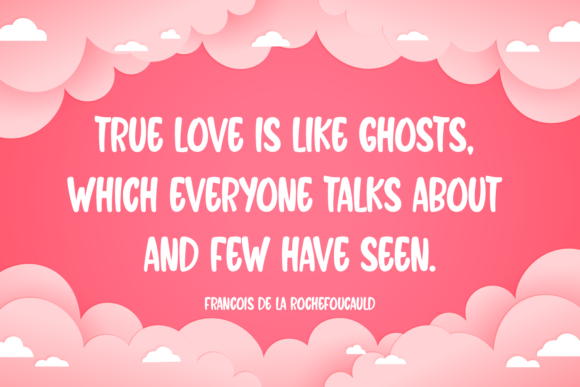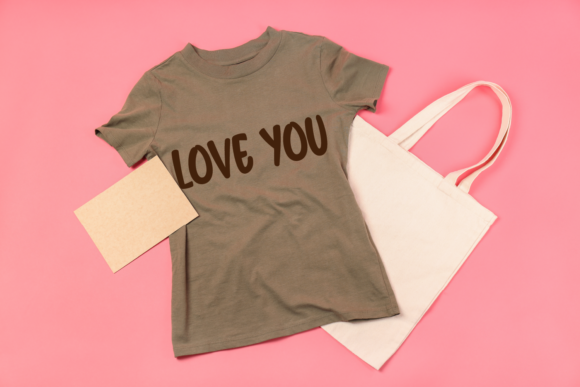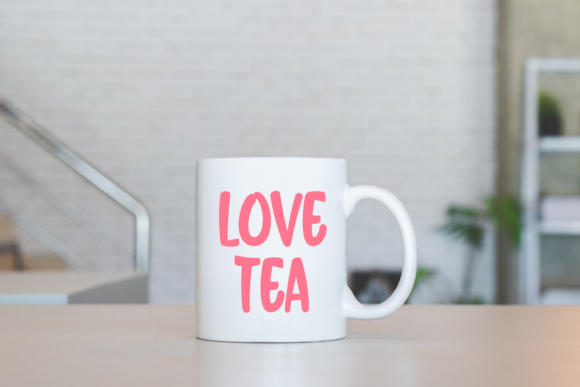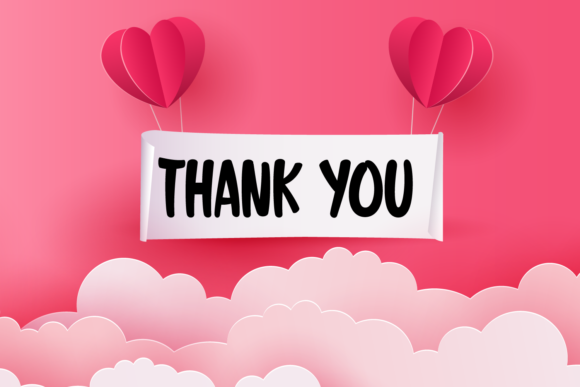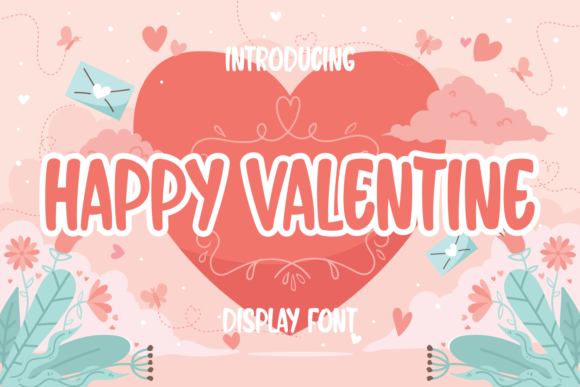
Happy Valentine Font: The Perfect Choice for Your Valentine’s Day Designs
Valentine’s Day is just around the corner, and what better way to make your designs stand out than with a beautiful and cute display font? Look no further than the Happy Valentine Font, a stunning typeface that’s perfect for creating eye-catching wall displays, wedding invitations, social media post logos, advertisements, product packaging, and more.
What Makes Happy Valentine Font So Special?
The Happy Valentine Font is a gorgeous display font that’s specifically designed to add a touch of love and charm to your designs. Its characters are carefully crafted to be both beautiful and cute, making it the perfect choice for any Valentine’s Day-themed project. Whether you’re a designer, crafty DIY enthusiast, or simply someone who loves to create, this font is sure to inspire you to create something truly special.
One of the best things about the Happy Valentine Font is its versatility. It’s perfect for a wide range of design projects, including:
• Wall displays: Create a stunning wall display with a sweet message or a favorite quote, perfect for Valentine’s Day or any other occasion.
• Wedding invitations: Make your wedding invitations truly special with this beautiful font, perfect for couples who want to add a touch of romance to their big day.
• Social media post logos: Create eye-catching social media post logos that are sure to grab attention and make your followers smile.
• Advertisements: Use the Happy Valentine Font to create adorable advertisements that will make your customers feel loved and appreciated.
• Product packaging: Add a touch of love to your product packaging with this beautiful font, perfect for businesses who want to make their products stand out.
• Product designs: Create stunning product designs that are sure to delight your customers, from t-shirts to mugs and more.
Why Choose Happy Valentine Font?
So why choose the Happy Valentine Font for your design projects? Here are just a few reasons:
• Unique and eye-catching: This font is truly one-of-a-kind, with characters that are both beautiful and cute.
• Versatile: Use it for a wide range of design projects, from wall displays to product packaging.
• Perfect for Valentine’s Day: This font is specifically designed for Valentine’s Day-themed projects, making it the perfect choice for designers who want to create something special for this holiday.
Tips for Using Happy Valentine Font
Here are a few tips for using the Happy Valentine Font in your design projects:
• Experiment with different colors: Try pairing the Happy Valentine Font with different colors to create a unique and eye-catching design.
• Play with font sizes: Experiment with different font sizes to create visual interest and add emphasis to your design.
• Add graphics and illustrations: Consider adding graphics and illustrations to your design to make it even more special.
The Happy Valentine Font is a beautiful and versatile display font that’s perfect for a wide range of design projects. Its unique and eye-catching characters make it the perfect choice for designers who want to create something special for Valentine’s Day or any other occasion. Whether you’re a seasoned designer or just starting out, this font is sure to inspire you to create something truly special. So why wait? Download the Happy Valentine Font today and start creating!